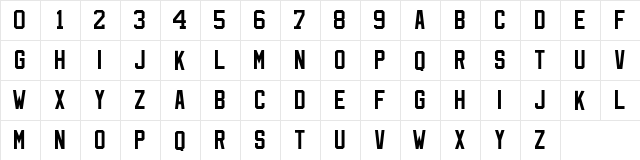
NHL Florida Regular Font Preview
NHL Florida Regular
NHL Florida Regular Font Details
Design Context for NHL Florida Typeface
NHL Florida takes a measured approach to typography — its balanced proportions and neutral character make it a reliable workhorse for both digital and print work.